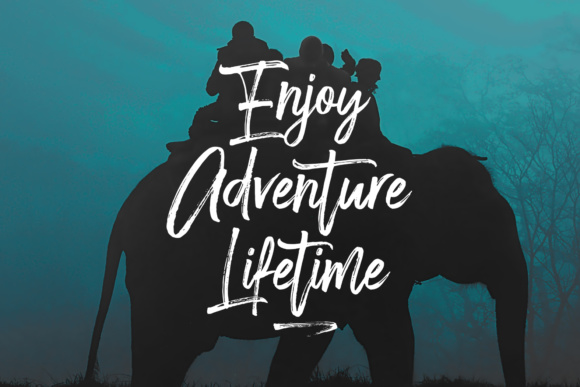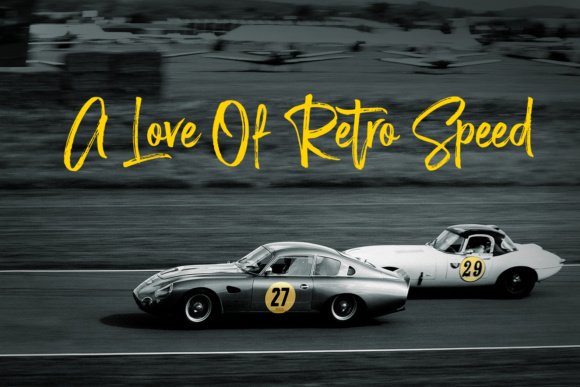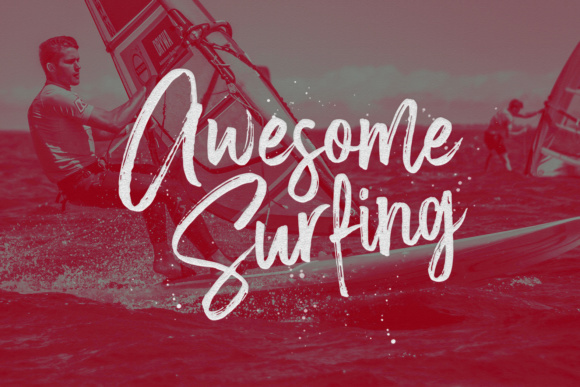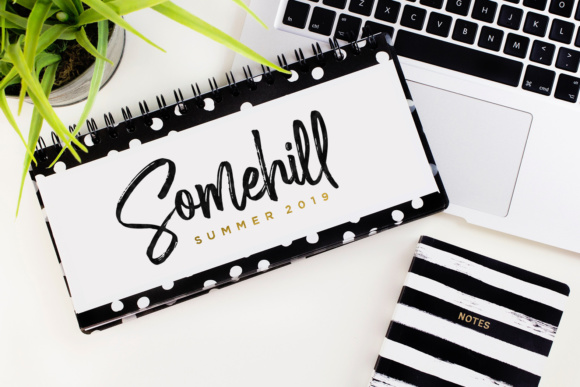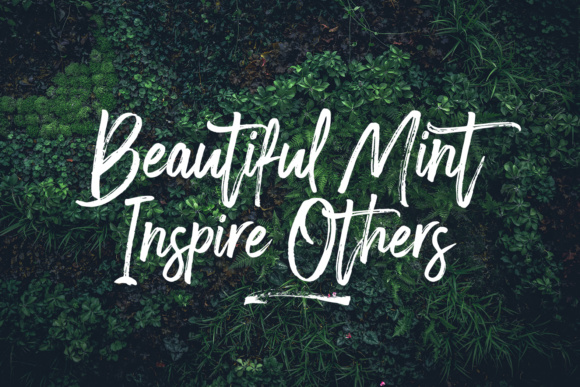
Smoothread Font
About Smoothread Font
Smoothread is a beautiful, textured handwritten brush font with a contemporary sensibility towards design. This font has a handmade, natural feel and is suitable for use in a wide range of works.